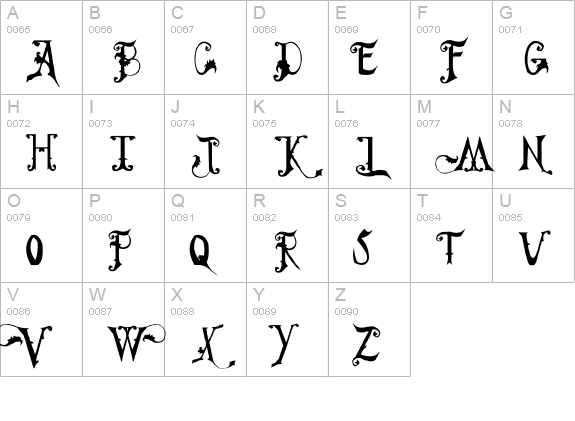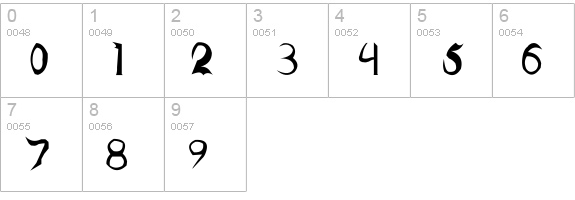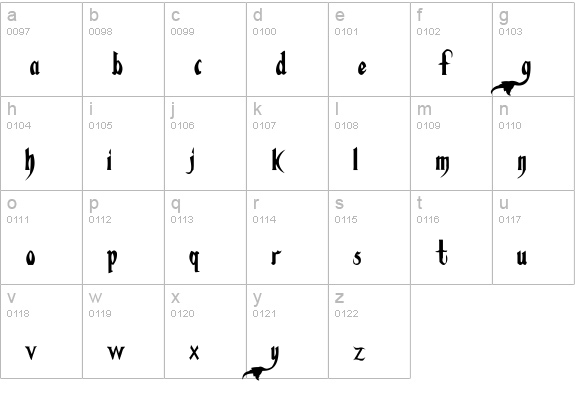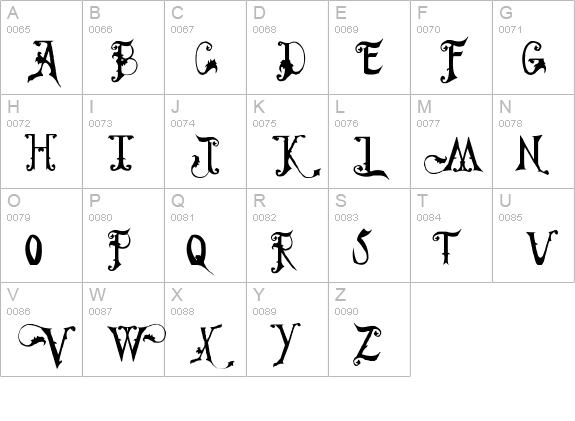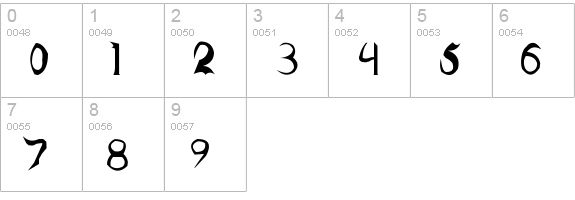
Fiddums Family Font Details
Introducing Fiddums Family, a captivating and versatile font that effortlessly combines elegance and playfulness. With its timeless appeal, this typeface is sure to add a touch of charm to any project. Fiddums Family is a free font that has been meticulously crafted to provide a visually pleasing experience. Its distinct characters, with their unique curves and graceful strokes, make every word come alive with personality. Whether you're working on a logo, a poster, or a wedding invitation, this font will elevate your design to new heights. This font offers a wide range of weights and styles, allowing you to express your creativity and find the perfect fit for your project. From the bold and expressive Fiddums Black to the delicate and whimsical Fiddums Light, there is a style for every occasion. Not only does Fiddums Family offer exceptional aesthetics, but it also ensures legibility and readability. Its carefully balanced proportions and letterforms make it a joy to read, whether in print or on screen. One of the best features of Fiddums Family is that it is freely available to download at FontsMarket.com. You can access this font with just a few clicks, allowing you to bring your design dreams to life without any hassle or extra cost. So why wait? Download Fiddums Family today and let it be the perfect companion for your creative endeavors. Unleash your imagination and watch as this font transforms your projects into works of art.